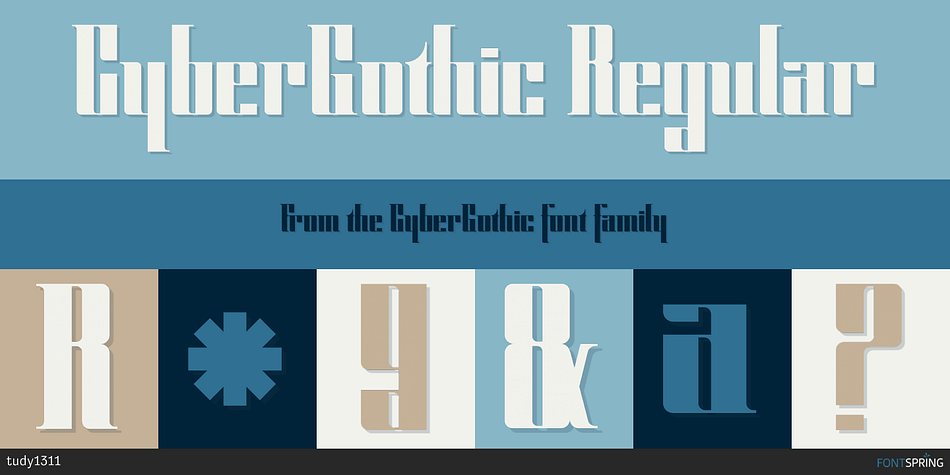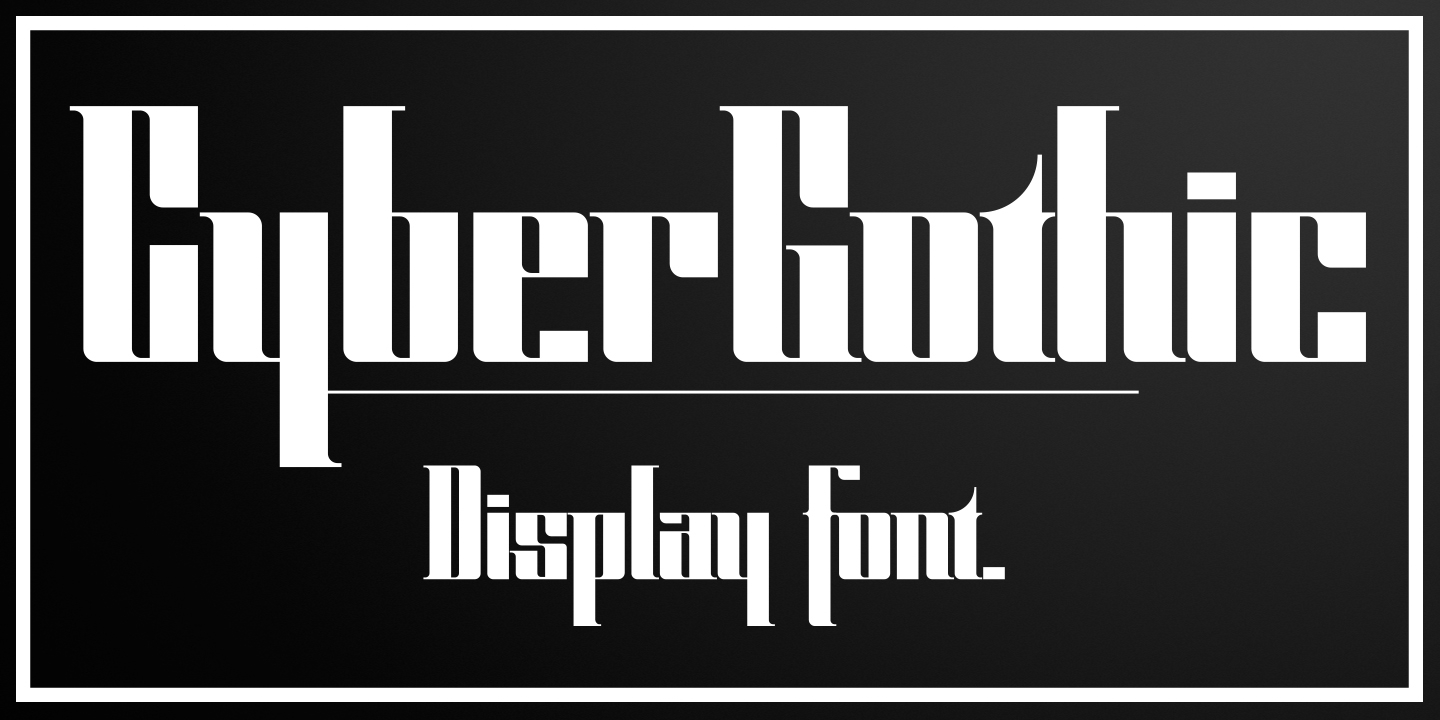
Designed by Tudor Banciu, CyberGothic is a display font published by tudy1311.
An aggresive typeface, through the harsh rhythm of heavy lines and thin serifs,plus narrow letterspacing.
This font has been made by writing with a 3mm calligraphy pen tip, trying to immitate a gothic style of writing out letters, but tilted all the way horizontally, instead of the normal 45° angle. By that rule alone, many decorative and intricate elements of the typeface had to be reduced to increase legibility. Then, the resulting letters were further geometrized in the vectorization process. A very stern, square-angled typeface is the result.
The serifs are mostly rounded, except for rectangular, decorative hairline serifs here and there.
In spite of its heavy and unforgiving aspect, it fits to many styles and looks. It is a headline font, it draws a lot of attention to itself through its dissonant, if geometric, presence.